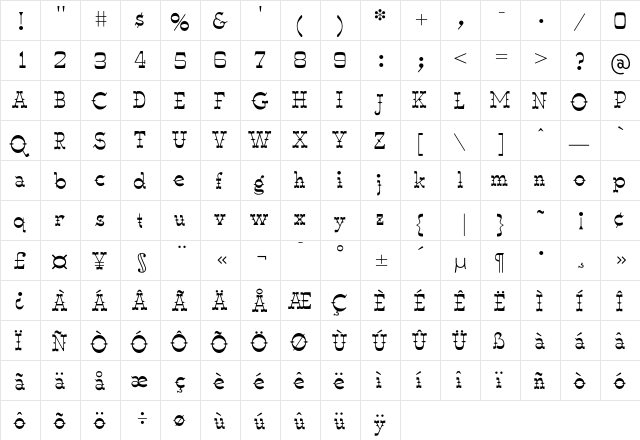
Luckyluke Regular
Design Context for Luckyluke Typeface
Luckyluke offers clean, dependable letterforms without strong stylistic allegiance, making it a practical choice for designers who need flexibility.